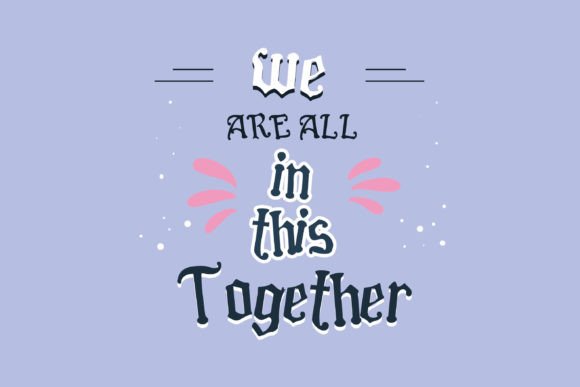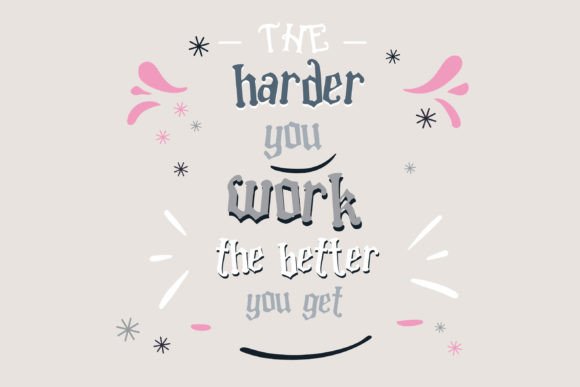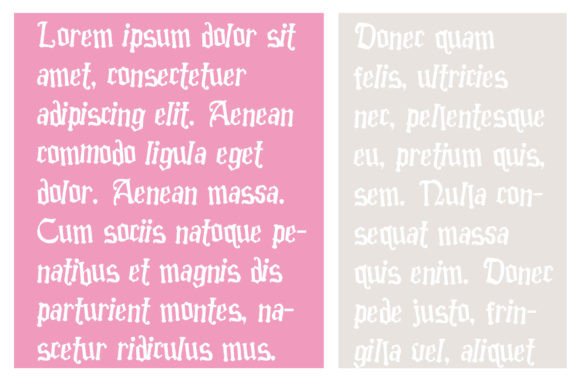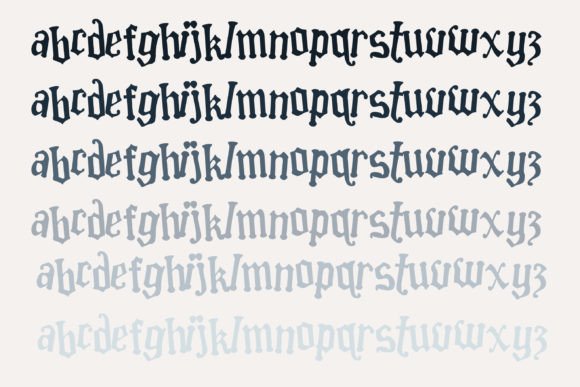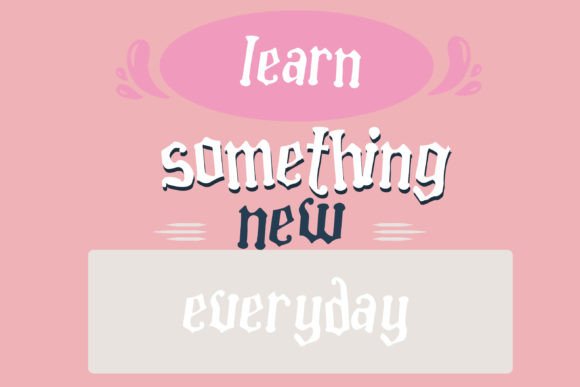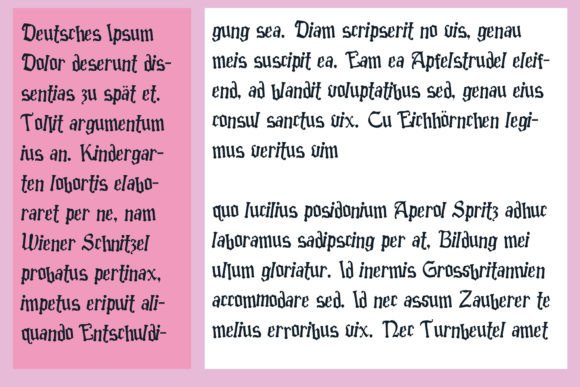
Introduction to Princess Prance Font
Princess Prance is a delightful, whimsical blackletter font with a childish flair.
Its bouncy baseline and fun curves will bring a smile to your face, while its soft edges and curly flourishes add a touch of playfulness Perfect for projects needing a light-hearted, whimsical feel.